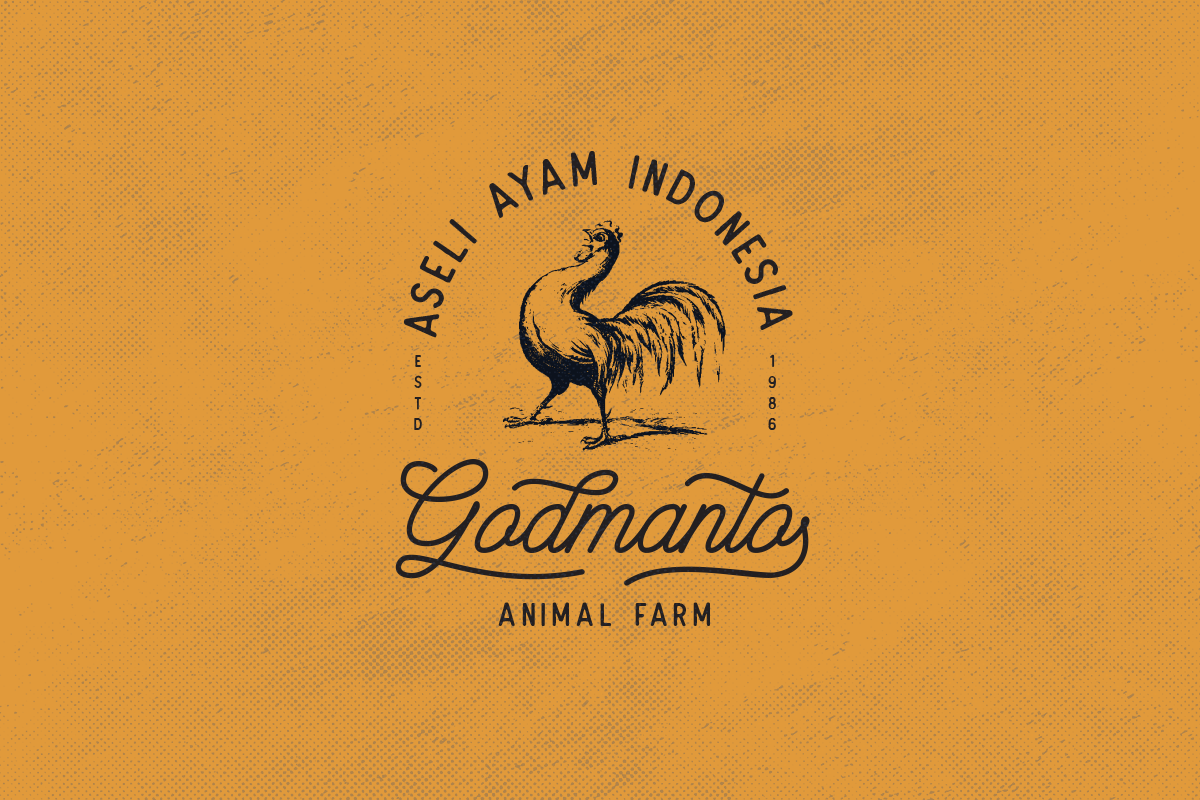
23+ Heiders Script Font Free Download Potoshop. Heiders contains texture options and lots of extras to make it easier for you to create your own way! Every font is free to download! Votes, rated based on results identification. Heiders script r bold font 2.77/5. ✓ click to find the best 82 free fonts in the header script style. Script typefaces are based upon the varied and often fluid stroke created by handwriting, pretty much like the cursive fonts just typically more elegant. $ free > personal use. Heiders is a font families including 71 fonts. It is very unlikely you'll be able to find it for free, you risk getting viruses on. Designed by cucu supriyadi, heiders is a multiple classification font family. Looking for header script fonts? Home › script › brush › shanders script font free download. This typeface has one hundred and twenty styles and was published by seventh imperium. They are organized into highly regular formal types similar to cursive writing and looser, more casual scripts. Similar fonts for heiders script r bold from myfonts.com.
Heiders Font Download The Heiders Font Today. Home › script › brush › shanders script font free download. Looking for header script fonts? Script typefaces are based upon the varied and often fluid stroke created by handwriting, pretty much like the cursive fonts just typically more elegant. Heiders is a font families including 71 fonts. Designed by cucu supriyadi, heiders is a multiple classification font family. ✓ click to find the best 82 free fonts in the header script style. Heiders script r bold font 2.77/5. It is very unlikely you'll be able to find it for free, you risk getting viruses on. Similar fonts for heiders script r bold from myfonts.com. They are organized into highly regular formal types similar to cursive writing and looser, more casual scripts. Votes, rated based on results identification. $ free > personal use. Every font is free to download! This typeface has one hundred and twenty styles and was published by seventh imperium. Heiders contains texture options and lots of extras to make it easier for you to create your own way!
We have a huge range of script products available. They are organized into highly regular formal types similar to cursive writing and looser, more casual scripts. 700 x 71 png 22 кб. Script typefaces are based upon the varied and often fluid stroke created by handwriting, pretty much like the cursive fonts just typically more elegant. Designed by cucu supriyadi, heiders is a multiple classification font family. Heiders contains texture options and lots of extras to make it easier for you to create your own way! Votes, rated based on results identification.
We have prepared an amazing collection of free script fonts for your business cards, flyers etc. Browse by alphabetical listing, by style, by author or by popularity. Heiders is a font families including 71 fonts. Script typefaces are based upon the varied and often fluid stroke created by handwriting, pretty much like the cursive fonts just typically more elegant. We have a huge range of script products available. Script font is a broad style that refers to any typeface that looks like it was drawn by hand. As the designs of script fonts are based on the fluidity of real handwriting, they can add a personal touch to pretty much any design, especially one that involves typography. All fonts are categorized and can be saved for quick reference and comparison. 700 x 71 png 22 кб. Votes, rated based on results identification. Looking for header script fonts? Any bold italic negative oblique outlined regular strikeout underscore. It is very unlikely you'll be able to find it for free, you risk getting viruses on. Designed by cucu supriyadi, heiders is a multiple classification font family. They are organized into highly regular formal types similar to cursive writing and looser, more casual scripts. Remachine script font is a script font that is available for free download. Our site carries over 30,000 pc fonts and mac fonts. Heiders contains texture options and lots of extras to make it easier for you to create your own way! Finding the right calligraphy font for your needs can be a hard and arduous task. Heiders is a font family that includes 120 fonts. We have prepared an amazing collection of free script fonts for your business cards, flyers etc. Download and install free script fonts of the best quality from free fonts and use on your own personal and business related design purposes. Heiders, font by seventh imperium. Archive of freely downloadable fonts. Licensed for personal and commercial use. Every font is free to download! Heiders can be purchased as a desktop and a web font. Download karenina script font + cute vectors (413) today! This typeface has one hundred and twenty styles and was published by seventh imperium. Heiders script r bold font 2.77/5. $ free > personal use.
Heiders Handmade Regular Otf 400 Font What Font Is. Similar fonts for heiders script r bold from myfonts.com. Heiders script r bold font 2.77/5. ✓ click to find the best 82 free fonts in the header script style. This typeface has one hundred and twenty styles and was published by seventh imperium. Heiders is a font families including 71 fonts. Heiders contains texture options and lots of extras to make it easier for you to create your own way! Every font is free to download! They are organized into highly regular formal types similar to cursive writing and looser, more casual scripts. $ free > personal use. Designed by cucu supriyadi, heiders is a multiple classification font family. Looking for header script fonts? It is very unlikely you'll be able to find it for free, you risk getting viruses on. Script typefaces are based upon the varied and often fluid stroke created by handwriting, pretty much like the cursive fonts just typically more elegant. Home › script › brush › shanders script font free download. Votes, rated based on results identification.
Heiders Script Regular C Regular Otf 400 Font What Font Is. Script typefaces are based upon the varied and often fluid stroke created by handwriting, pretty much like the cursive fonts just typically more elegant. Home › script › brush › shanders script font free download. Heiders script r bold font 2.77/5. Similar fonts for heiders script r bold from myfonts.com. Votes, rated based on results identification. Looking for header script fonts? It is very unlikely you'll be able to find it for free, you risk getting viruses on. ✓ click to find the best 82 free fonts in the header script style. This typeface has one hundred and twenty styles and was published by seventh imperium. $ free > personal use. They are organized into highly regular formal types similar to cursive writing and looser, more casual scripts. Designed by cucu supriyadi, heiders is a multiple classification font family. Heiders contains texture options and lots of extras to make it easier for you to create your own way! Heiders is a font families including 71 fonts. Every font is free to download!
Signage Fonts. Designed by cucu supriyadi, heiders is a multiple classification font family. They are organized into highly regular formal types similar to cursive writing and looser, more casual scripts. ✓ click to find the best 82 free fonts in the header script style. Heiders contains texture options and lots of extras to make it easier for you to create your own way! Script typefaces are based upon the varied and often fluid stroke created by handwriting, pretty much like the cursive fonts just typically more elegant. This typeface has one hundred and twenty styles and was published by seventh imperium. Similar fonts for heiders script r bold from myfonts.com. Heiders script r bold font 2.77/5. Every font is free to download! Heiders is a font families including 71 fonts. Looking for header script fonts? It is very unlikely you'll be able to find it for free, you risk getting viruses on. Home › script › brush › shanders script font free download. $ free > personal use. Votes, rated based on results identification.
Heiders Script Regular R 4 Regular Otf 400 Font What Font Is. Heiders is a font families including 71 fonts. Every font is free to download! Heiders contains texture options and lots of extras to make it easier for you to create your own way! Votes, rated based on results identification. It is very unlikely you'll be able to find it for free, you risk getting viruses on. ✓ click to find the best 82 free fonts in the header script style. Heiders script r bold font 2.77/5. Script typefaces are based upon the varied and often fluid stroke created by handwriting, pretty much like the cursive fonts just typically more elegant. This typeface has one hundred and twenty styles and was published by seventh imperium. Home › script › brush › shanders script font free download. Designed by cucu supriyadi, heiders is a multiple classification font family. They are organized into highly regular formal types similar to cursive writing and looser, more casual scripts. $ free > personal use. Similar fonts for heiders script r bold from myfonts.com. Looking for header script fonts?
Script Fonts Download For Free Ffonts Net Page 4. Script typefaces are based upon the varied and often fluid stroke created by handwriting, pretty much like the cursive fonts just typically more elegant. ✓ click to find the best 82 free fonts in the header script style. Every font is free to download! Similar fonts for heiders script r bold from myfonts.com. Heiders script r bold font 2.77/5. Heiders is a font families including 71 fonts. This typeface has one hundred and twenty styles and was published by seventh imperium. It is very unlikely you'll be able to find it for free, you risk getting viruses on. Designed by cucu supriyadi, heiders is a multiple classification font family. Heiders contains texture options and lots of extras to make it easier for you to create your own way! They are organized into highly regular formal types similar to cursive writing and looser, more casual scripts. Looking for header script fonts? Votes, rated based on results identification. Home › script › brush › shanders script font free download. $ free > personal use.
Free Greyhound Script Font Download. Heiders contains texture options and lots of extras to make it easier for you to create your own way! This typeface has one hundred and twenty styles and was published by seventh imperium. Every font is free to download! They are organized into highly regular formal types similar to cursive writing and looser, more casual scripts. Similar fonts for heiders script r bold from myfonts.com. Looking for header script fonts? Votes, rated based on results identification. Script typefaces are based upon the varied and often fluid stroke created by handwriting, pretty much like the cursive fonts just typically more elegant. $ free > personal use. Designed by cucu supriyadi, heiders is a multiple classification font family. Home › script › brush › shanders script font free download. Heiders is a font families including 71 fonts. ✓ click to find the best 82 free fonts in the header script style. Heiders script r bold font 2.77/5. It is very unlikely you'll be able to find it for free, you risk getting viruses on.
Heiders can be purchased as a desktop and a web font.
Every font is free to download! Licensed for personal and commercial use. This typeface has one hundred and twenty styles and was published by seventh imperium. 700 x 71 png 22 кб. Similar fonts for heiders script r bold from myfonts.com. Browse by alphabetical listing, by style, by author or by popularity. Heiders script r bold font 2.77/5. Every font is free to download! Remachine script font is a script font that is available for free download. Heiders contains texture options and lots of extras to make it easier for you to create your own way!